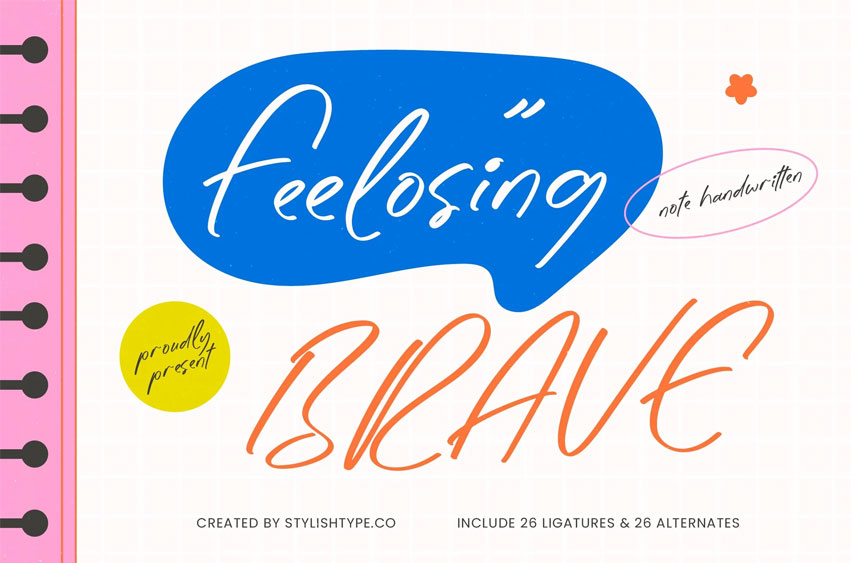
Feelosing Brave Font
Feelosing Brave Font Note Handwritten Discover the perfect blend of organic movement and modern sophistication. Feelosing Brave – Note Handwritten captures the essence of authentic penmanship with a refined, contemporary edge. This handwritten script offers a unique fluidity that brings a personal, human touch to digital designs. Its flowing strokes and natural ligatures create a sense of effortless style, making Feelosing Brave – Note Handwritten an essential tool for designers seeking to convey warmth and creativity.
Elevate your global communication with a typeface designed for diversity and high performance. With its extensive multilingual support, Feelosing Brave – Note Handwritten adapts seamlessly across global markets, making it incredibly versatile for international projects. This robust character set ensures your brand message remains consistent and impactful regardless of the language. By integrating Feelosing Brave – Note Handwritten into your workflow, you gain a cross-cultural asset that maintains its signature aesthetic worldwide.